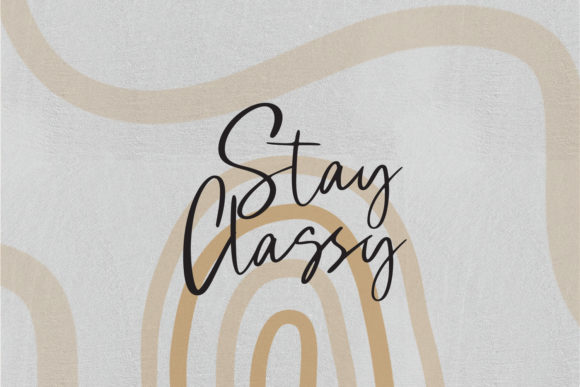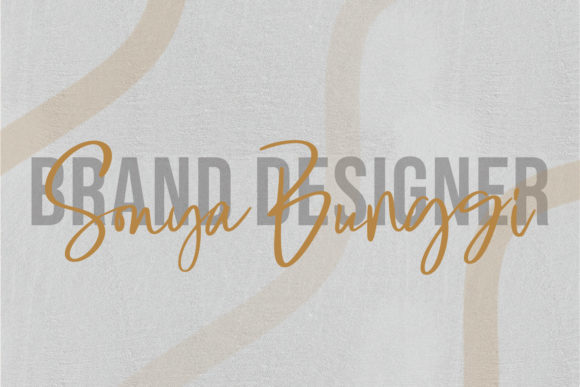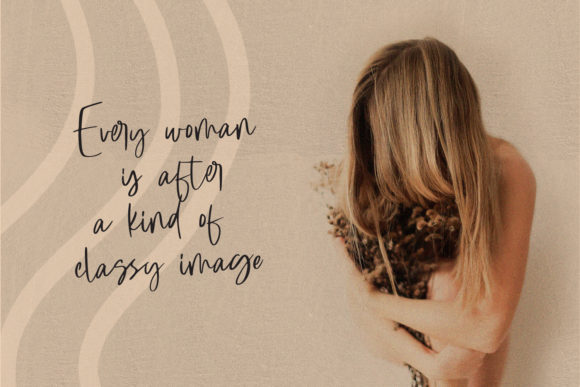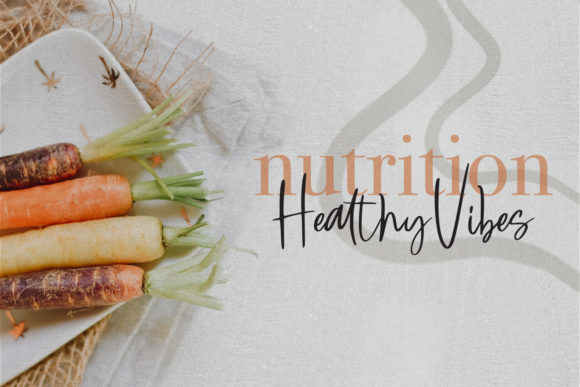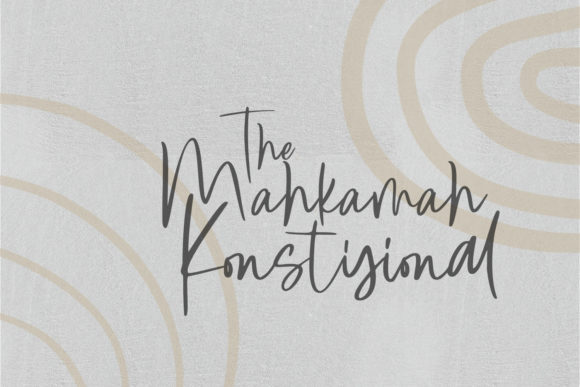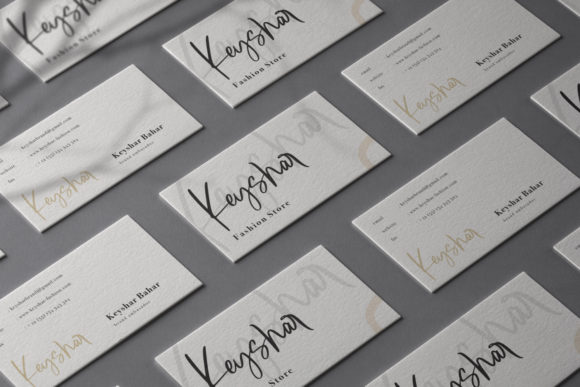
The Perfect Blend of Creativity and Style: Blueberrys Font
As a designer, there’s nothing quite like the rush of inspiration that comes from discovering a new font. You’re working on a project, pouring over ideas and possibilities, when suddenly – it hits you. You envision a beautiful, handwritten script that perfectly captures the essence of your concept. That’s exactly what happened when I stumbled upon Blueberrys Font. Its modern, light feel is like a breath of fresh air, and I knew I had to share it with the world.
Designed to evoke a sense of contemporary style, Blueberrys Font is the perfect addition to any design project. Whether you’re working on a branding campaign, a blog post, or a social media graphic, this font is sure to add a touch of sophistication and whimsy. For designers, Blueberrys Font is a valuable tool that can help take your work to the next level, adding a unique and personal touch to every project.
Blueberries Font Key Features
- Unique Characteristics: The font features a unique, hand-drawn design with subtle texture and imperfections, giving it a natural and organic feel.
- Font Pairing: The font is designed to pair well with sans-serif fonts, making it a versatile choice for various design projects.
Blueberrys Font Review
As a designer, I’ve had the chance to work with Blueberrys Font, and I must say it’s been an interesting experience. ✨ One of the things I appreciate about this font is its unique, handwritten feel. It adds a personal touch to any design project and can really help to create a sense of warmth and approachability.
Another aspect that works well is the font’s versatility. ✨ It comes in a range of weights and styles, making it easy to find the perfect fit for your project. From headings to body text, Blueberrys Font is a great choice for designers who want a font that’s both functional and aesthetically pleasing.
However, I do have a few reservations about this font. ⚠️ One of the main limitations is its readability at smaller sizes. While it looks great at larger sizes, it can become difficult to read at smaller sizes, which may limit its use in certain contexts. Additionally, the font’s unique feel can sometimes make it feel a bit too informal or casual, which may not be suitable for all types of projects.
Overall, I think Blueberrys Font is a solid choice for designers who want a unique, handwritten feel. While it may have some limitations, its versatility and aesthetic appeal make it a great addition to any design toolkit.
- Unique, handwritten feel
- Good for creating a sense of warmth and approachability
- Range of weights and styles
- May not be suitable for projects that require a more formal tone
- Readability issues at smaller sizes
Tips for Getting the Most Out of Blueberries Font
Use Blueberries Font for titles, headings, and other emphasis text to create a unique and eye-catching design.
Combine Blueberries Font with other creative elements, such as illustrations or graphics, to add visual interest to your design.
Experiment with different font sizes, colors, and styles to find the perfect balance for your design.
Blueberries Font is perfect for:
Designing children’s books, educational materials, and other content for kids.
Creating invitations, party decorations, and other event-related materials.
Developing branding and marketing materials for businesses and organizations with a playful or whimsical tone.